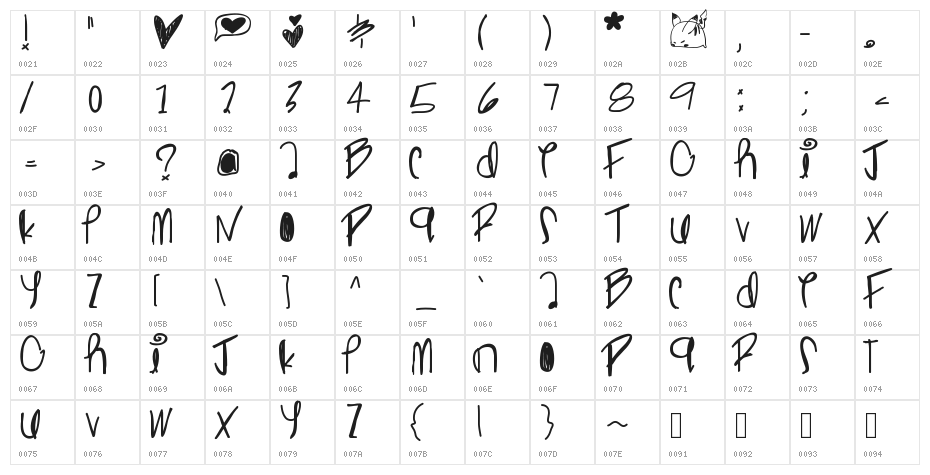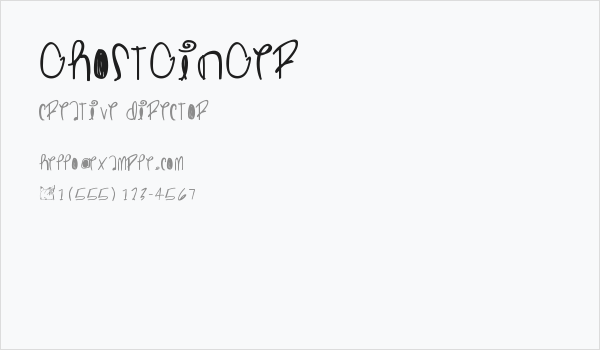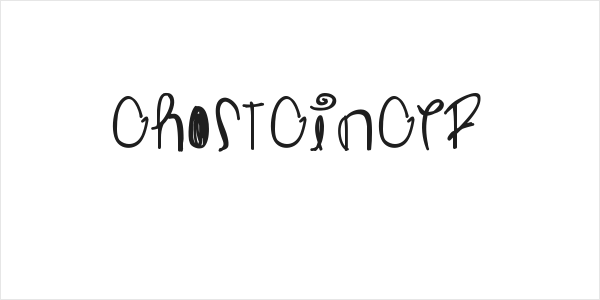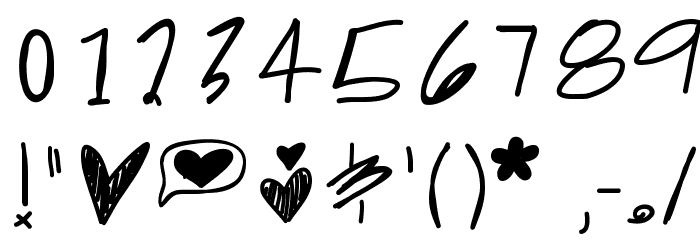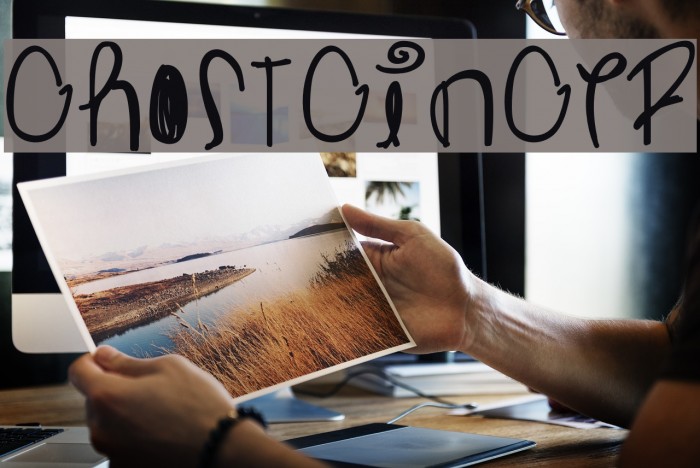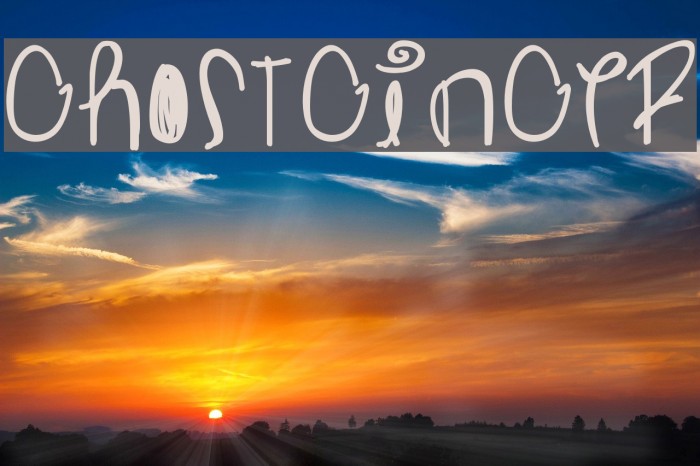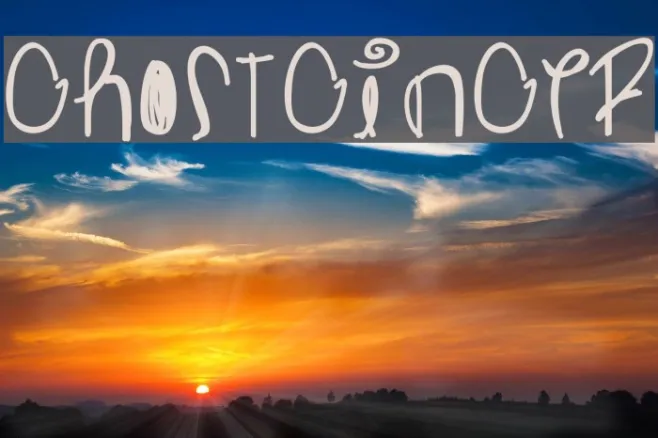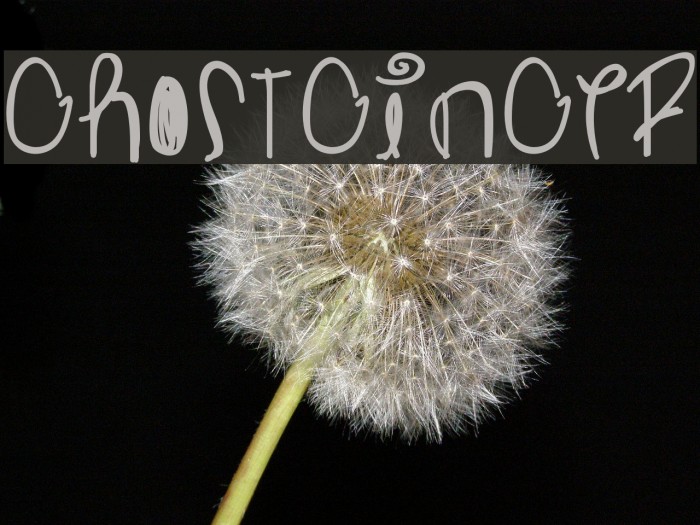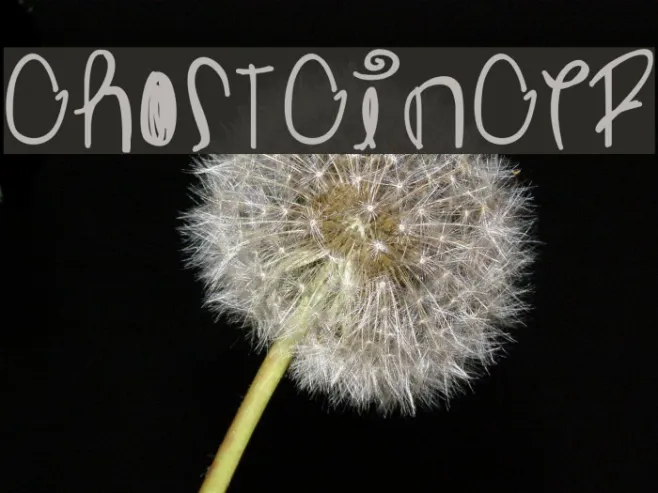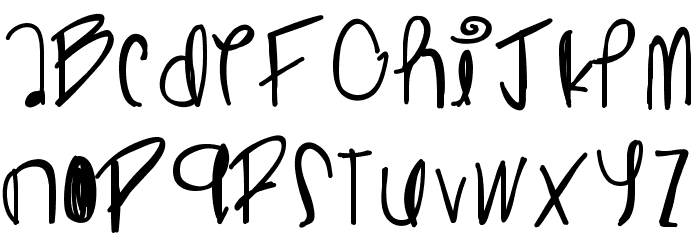
Ghostginger Font
Ghostginger Description
This font features a playful and whimsical handwritten style, characterized by its irregular strokes and quirky embellishments. Each letter has a unique flair, with some characters incorporating swirls and loops that add to its charm. The font maintains a casual and informal tone, making it ideal for creative projects that require a touch of personality. The numbers and special characters follow the same playful design, ensuring consistency throughout. Its overall appearance is lively and expressive, perfect for capturing attention and conveying a sense of fun.
| Proposed Projects | Ideal for greeting cards, children's books, playful branding, and creative social media graphics. |